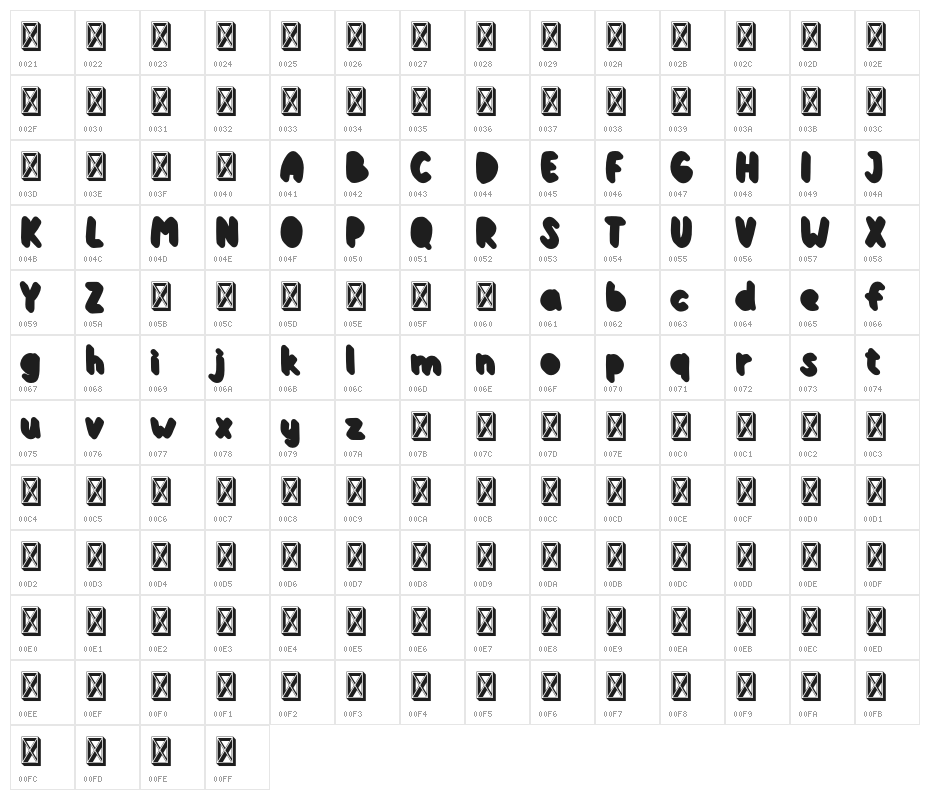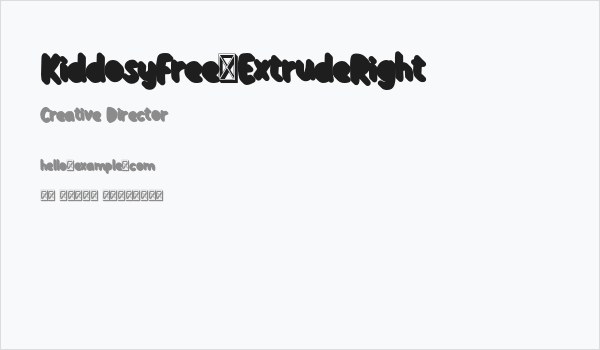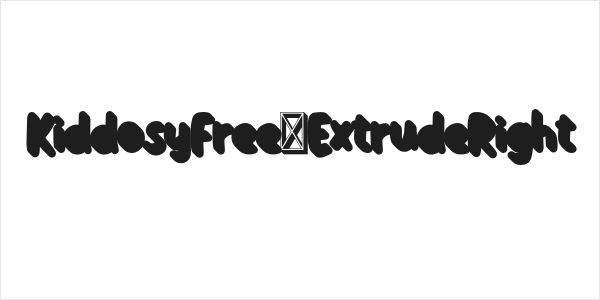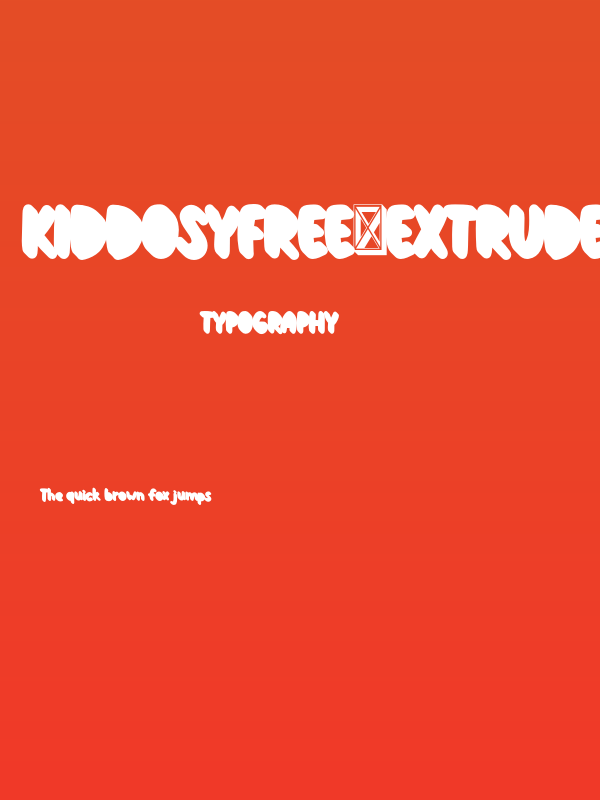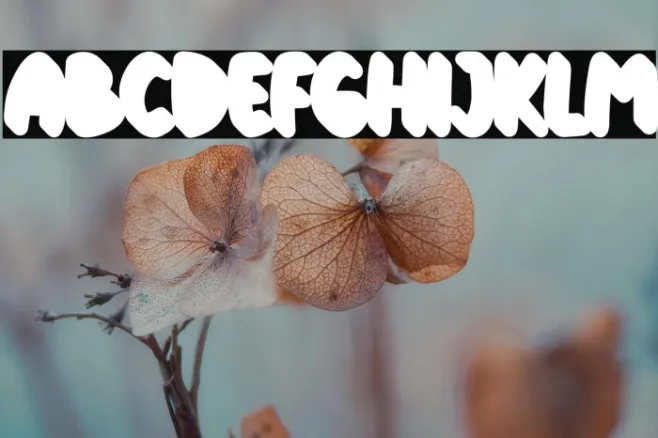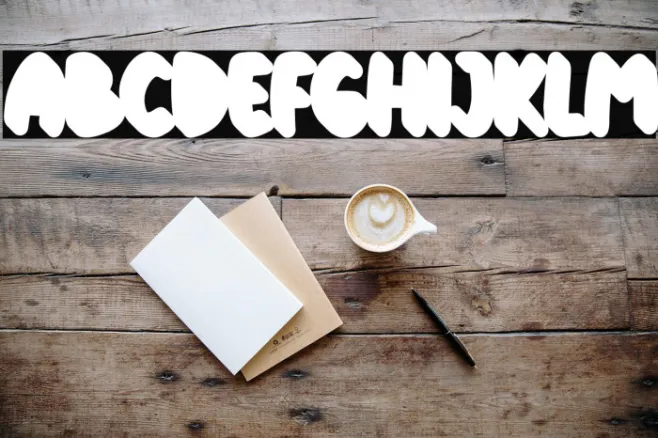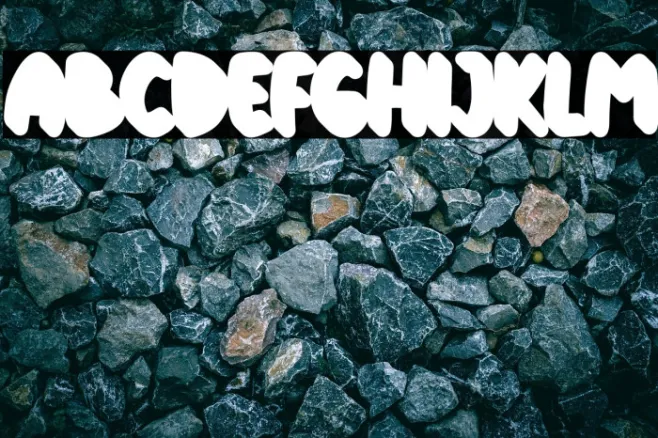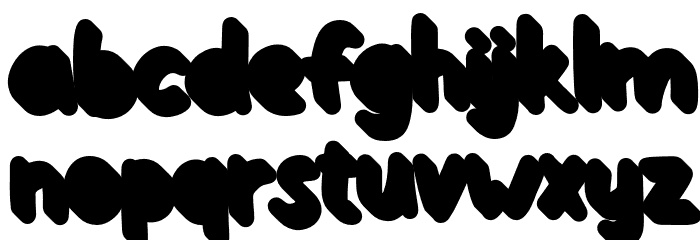
KiddosyFree-ExtrudeRight Font
KiddosyFree-ExtrudeRight Description
This playful and bold font features thick, rounded characters that exude a sense of fun and creativity. The letters are designed with a consistent thickness, giving them a strong presence on the page. The font's unique extruded effect adds depth and dimension, making it stand out in any design. Its whimsical style is perfect for projects that aim to capture a youthful and energetic vibe. The uppercase and lowercase letters maintain a uniform style, ensuring readability while still being visually striking. This font is ideal for creating eye-catching headlines, posters, and branding materials that require a touch of playfulness.
| Overall Style | Playful, Modern |
| Use Case | Headlines, Posters, Branding |
| Proposed Projects | Perfect for children's book covers, playful branding, event posters, and creative social media graphics. |